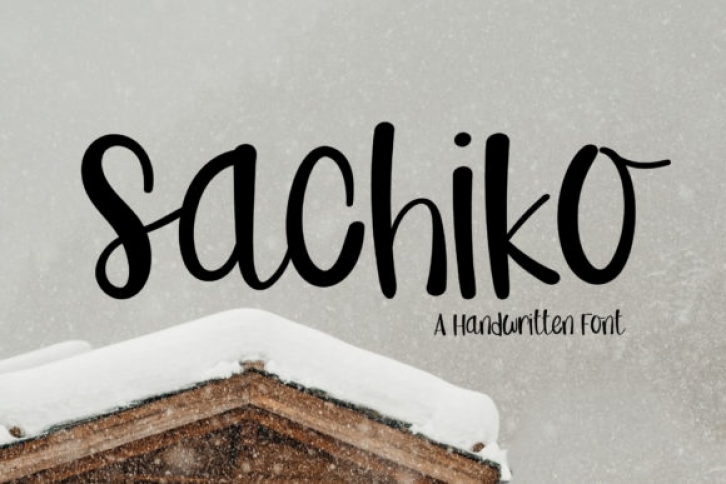
Sachiko is a cool, friendly and playful handwritten font. Whether you use it for cartoon related designs, children games or just any creation that requires a lovely touch, this font will be an amazing choice.